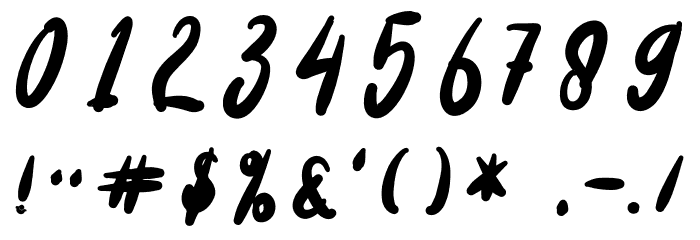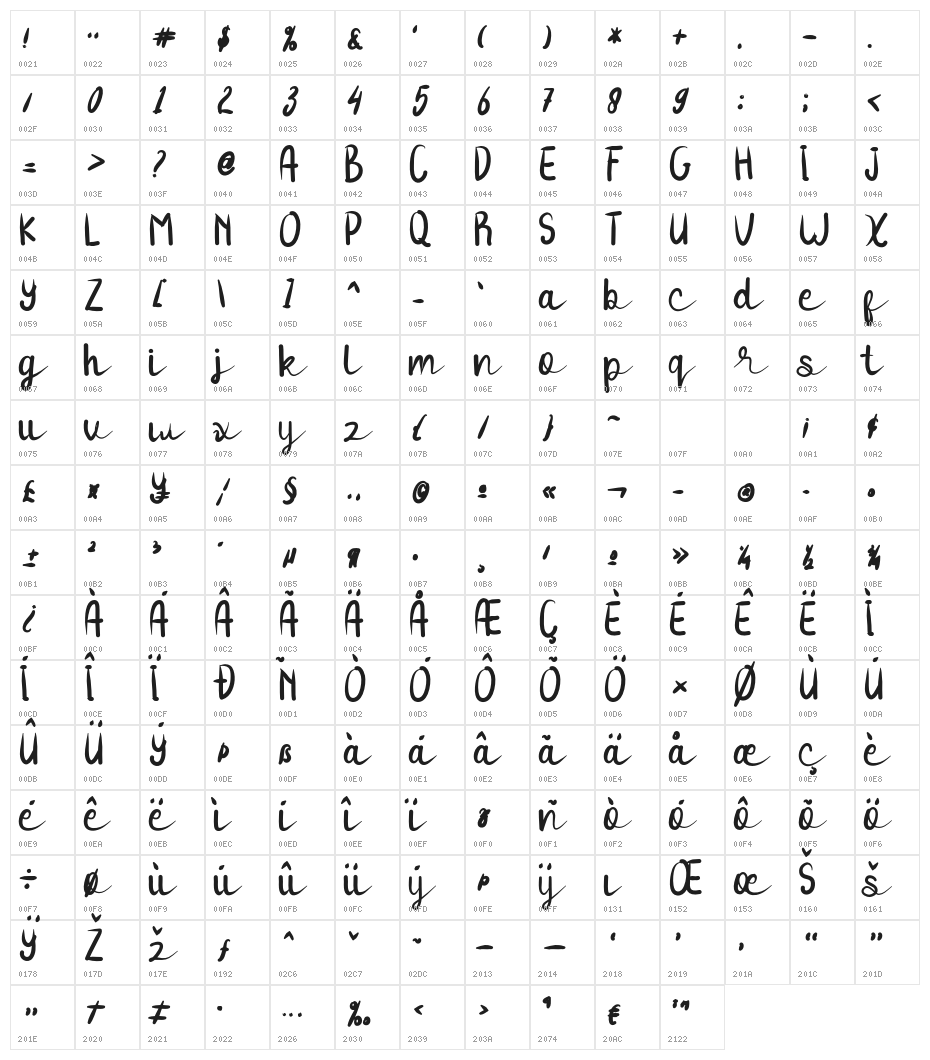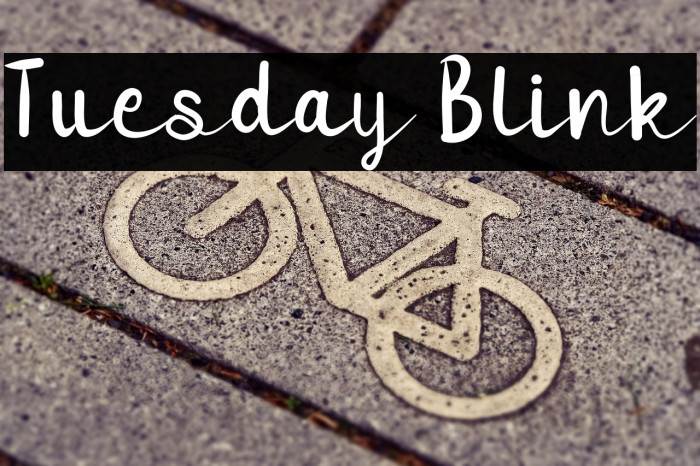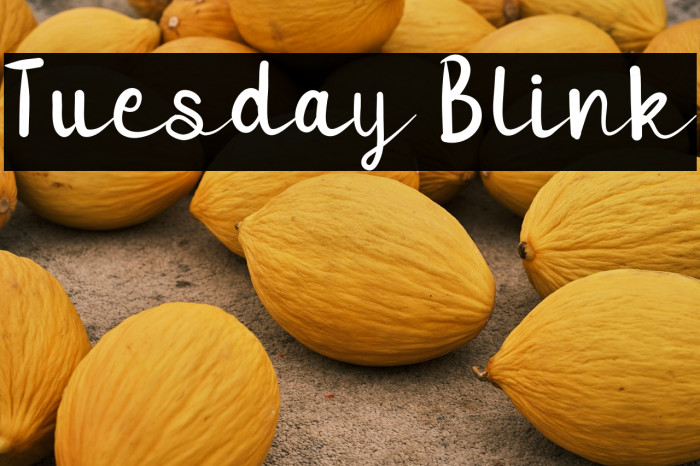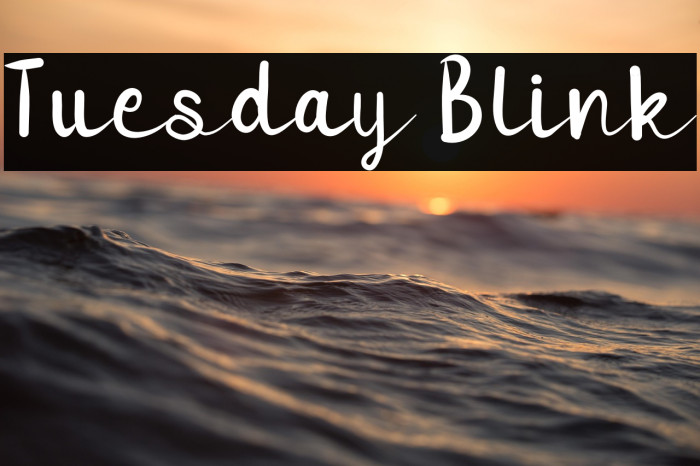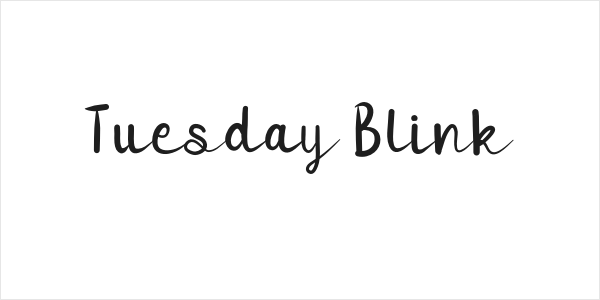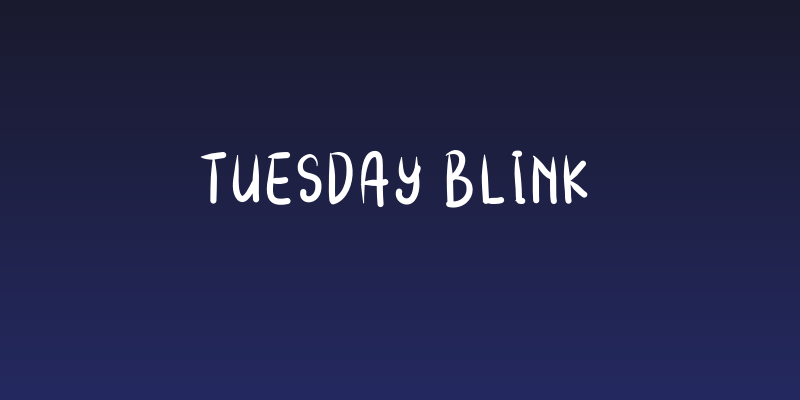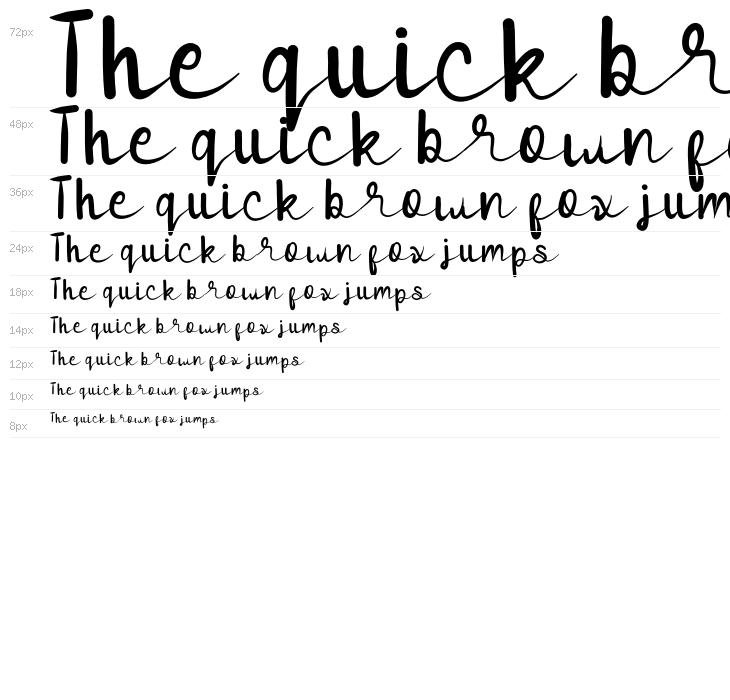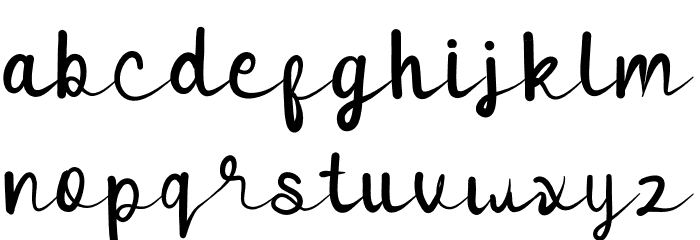
Tuesday Blink Font
Tuesday Blink Description
This font features a playful and dynamic style, combining elements of both script and sans-serif characteristics. The uppercase letters are bold and slightly condensed, with a smooth flow that adds a sense of movement. The lowercase letters are more fluid and cursive, with a natural handwritten feel. Numbers are consistent with the overall style, maintaining the playful yet clear aesthetic. Special characters are well-integrated, ensuring versatility in various design contexts. The font's unique blend of styles makes it suitable for creative and informal projects, offering a friendly and approachable appearance.
| Proposed Projects | Ideal for greeting cards, invitations, playful branding, and social media graphics. |